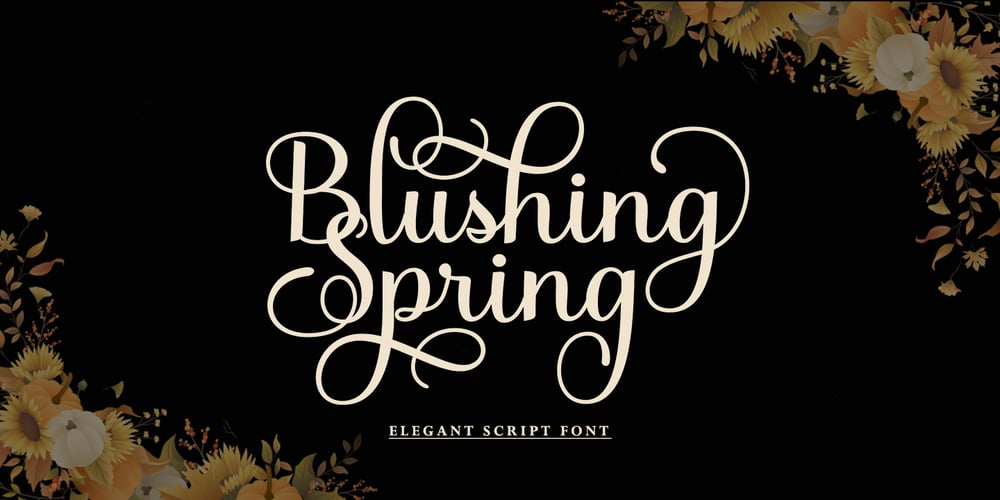
Blushing Spring
Blushing Spring font
Blushing Spring Font Family was designed by Rahmad Rizky and published by Rhd Studio. Blushing Spring contains 1 styles and family package options. Blushing Spring is a smooth, elegant, and flowing handwritten font. It has a very balanced character and as a result, it fits into a wide set of designs. Blushing’s history features varied baselines, smooth lines, beautiful glyphs and stunning alternatives. Add to your most creative ideas and see how they put them into action!Blushing Spring has 358 Alternates, including multiple language support. With OpenType features with alternative styles and elegant binding. The OpenType feature works automatically, but you can access it manually and for the best results necessary for your creativity in combining these variations of the Glyph.